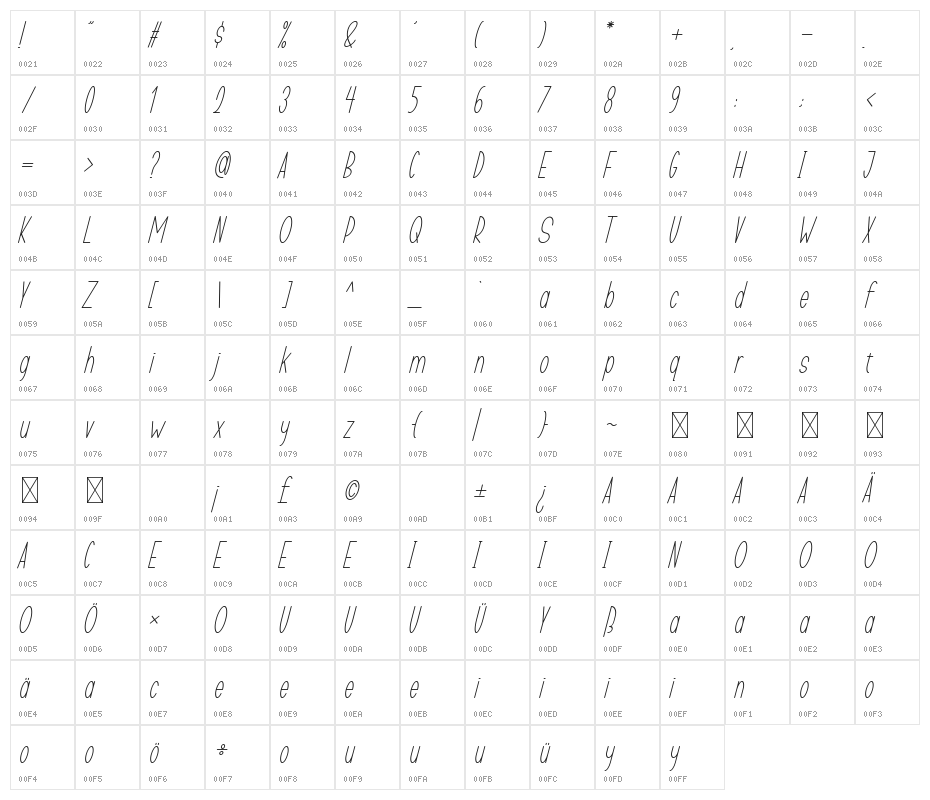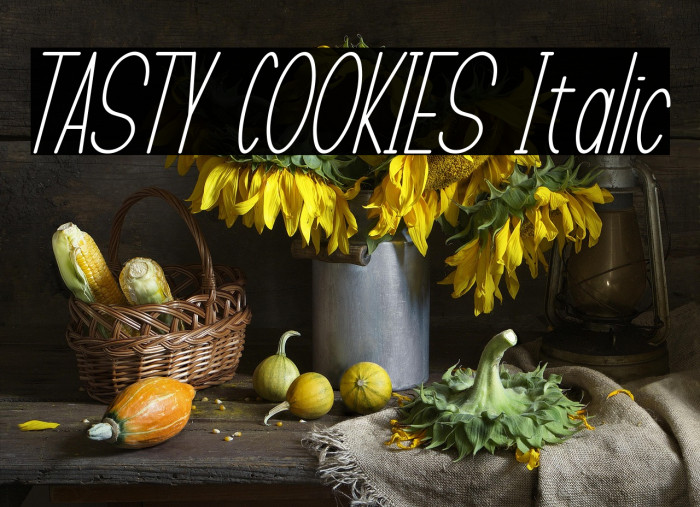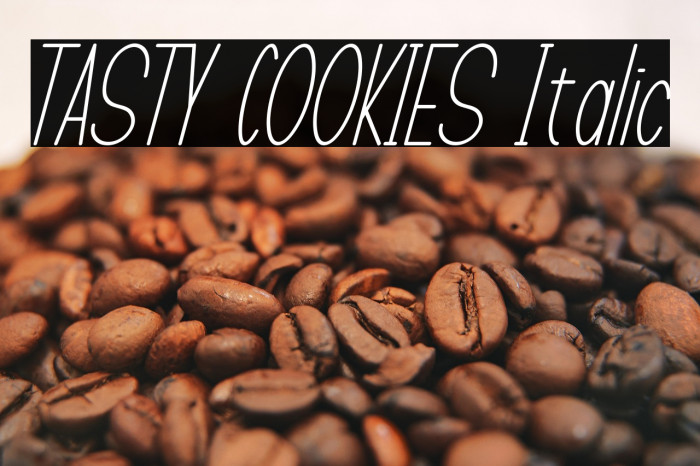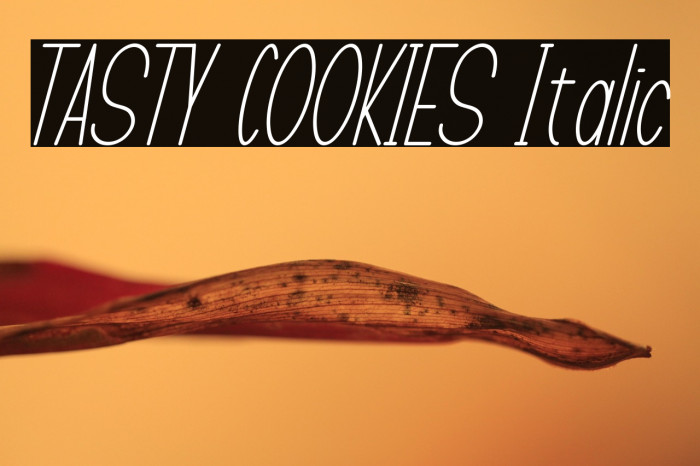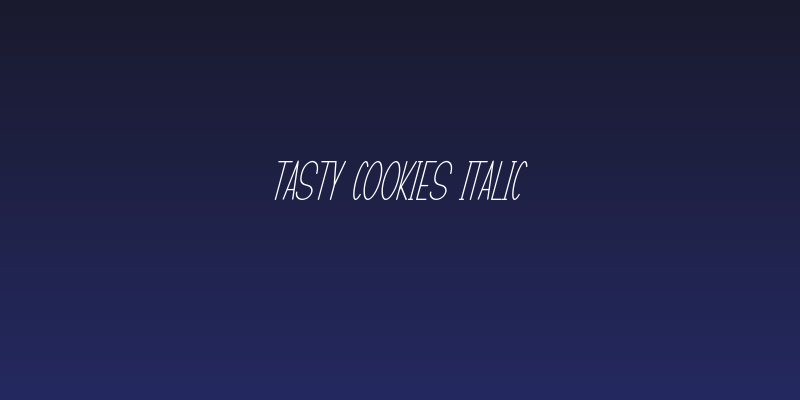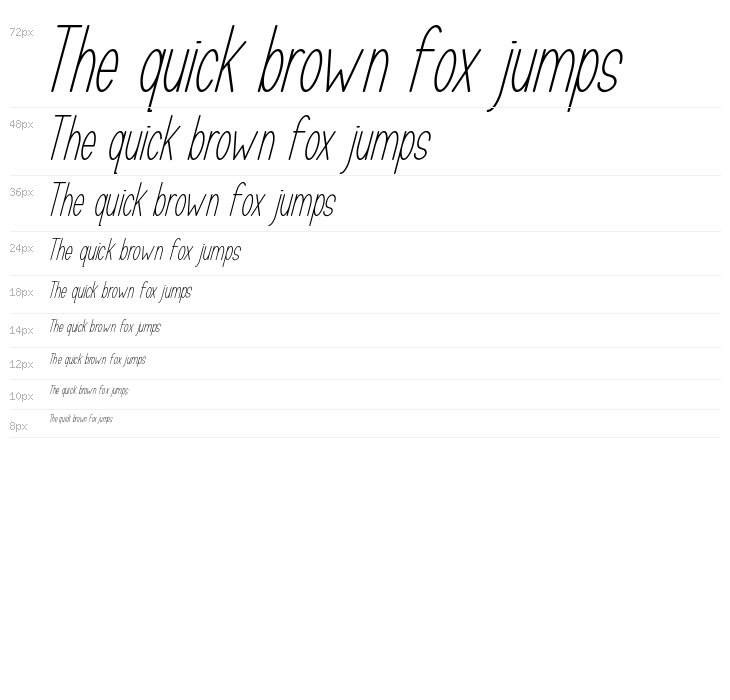
TASTY COOKIES Italic Font
TASTY COOKIES Italic Description
This font features a sleek, italicized style with elongated, narrow characters that convey a sense of elegance and fluidity. The letters are slightly slanted, giving them a dynamic and modern appearance. The uppercase and lowercase letters maintain consistent proportions, with smooth curves and clean lines. The numerals and special characters are designed to match the overall aesthetic, ensuring a cohesive look across all text. This font's thin strokes and minimalistic design make it suitable for projects that require a touch of sophistication and modernity.
| Proposed Projects | Ideal for fashion magazines, elegant invitations, modern branding, and stylish website headers. |